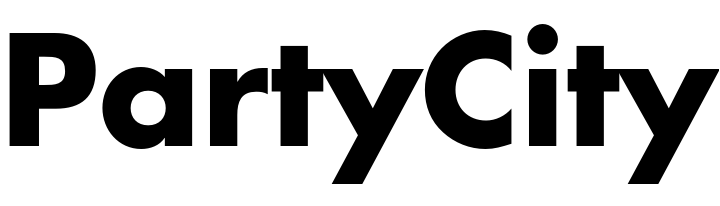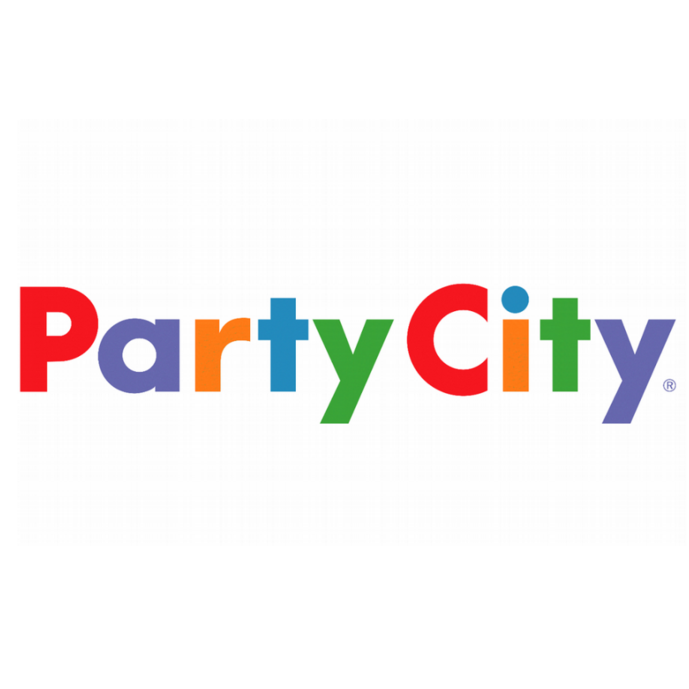
Party City Font
Fonts in UseParty City is a retail chain specializing in party supplies, costumes, and decorations. It is owned by Amscan Holdings, Inc., headquartered in New Jersey, USA, and was founded in 1986.
The logo of Party City uses the widely used geometric sans-serif typeface called Futura Bold, which was created by the German type designer Paul Renner in 1927.